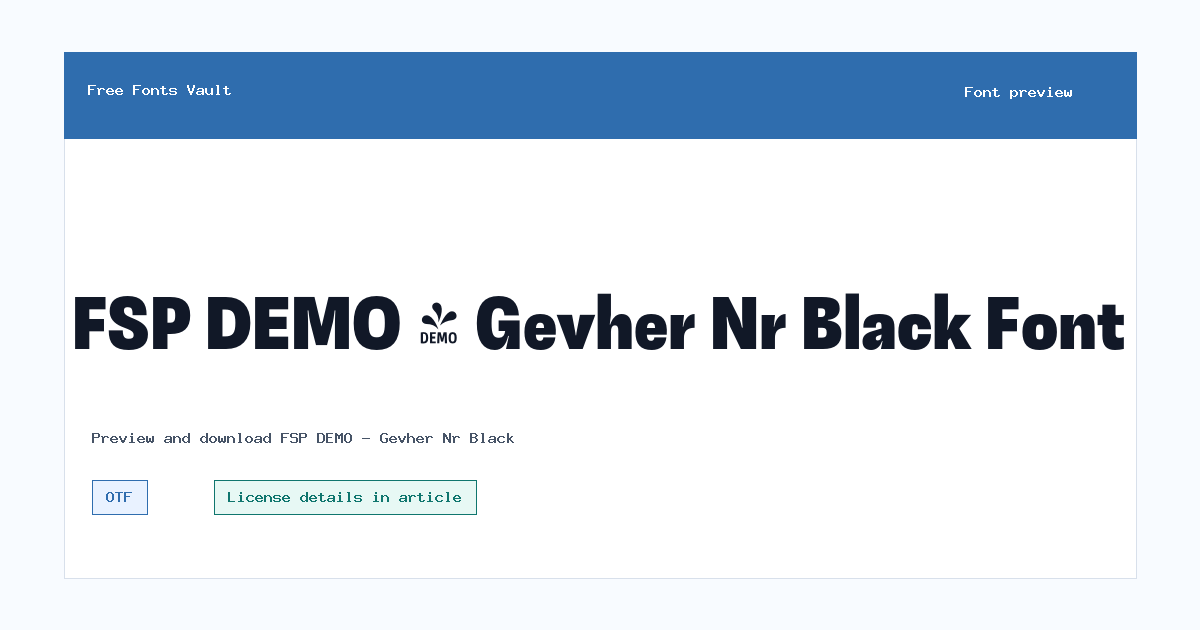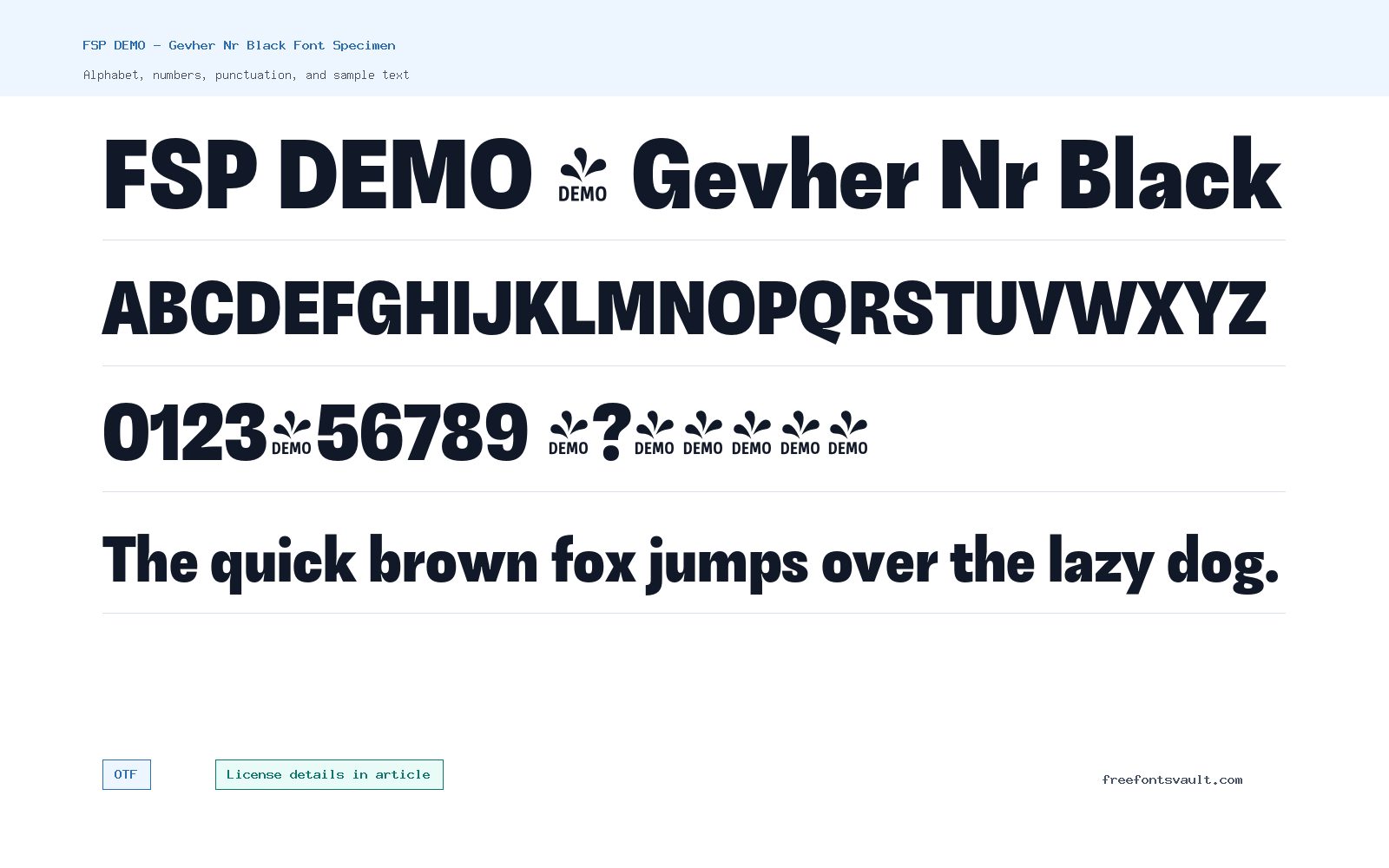
FSP DEMO - Gevher Nr Black
• Designer Oguzhan Cengiz
• Foundry Hurufatfont Type Foundry
FSP DEMO – Gevher Nr Black font.
FSP DEMO – Gevher Nr Black is a heavy display font made for strong words and short visual impact. Its 900 weight gives headlines a dense, confident shape, so it should be tested where bold typography is the main focus.
About FSP DEMO – Gevher Nr Black
This is the kind of font to try when a regular bold style does not feel strong enough. The black weight can work for posters, title graphics, thumbnails, social images, and short branding drafts. It is not a comfortable choice for long paragraphs because heavy strokes reduce the open space inside letters and can make dense text tiring to read.
• Black 900 weight for strong display typography.
• Designed for short headings, posters, and bold graphic text.
• Needs size and spacing checks because very heavy strokes can crowd letters.
• Works best beside a lighter companion font for captions and body copy.
• Posters, title cards, bold page headers, and social media graphics.
• Logo roughs, short brand words, labels, and product-name mockups.
• All-caps tests where impact matters more than paragraph readability.
• Hero text on simple backgrounds with enough contrast.
Test uppercase words, numbers, and punctuation in the live preview. Heavy fonts often look good in a single word but become tight in longer phrases. If readability drops, increase spacing, reduce the number of words, or pair this black weight with a lighter support font.
What kind of font is FSP DEMO – Gevher Nr Black?
It is a black-weight OTF display font. It is meant for short, prominent text such as headlines, posters, and title graphics.
Is it good for body text?
No. The 900 weight is too heavy for most long paragraphs. Use it for display text and choose a simpler font for reading sections.
Who designed Gevher Nr Black?
The entry credits Oguzhan Cengiz, with Hurufatfont Type Foundry listed as the foundry.